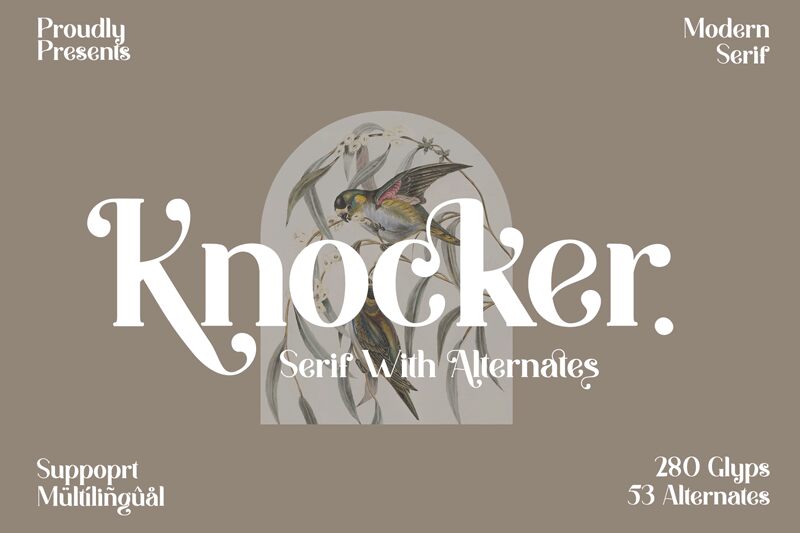
Knocker, a mesmerizing creation by Bearytype, is a display font that exudes the charm of yesteryears with its retro serif style. Perfect for projects seeking an authentic vintage appeal, Knocker adds a touch of nostalgia to logos, posters, and packaging designs. Its alluring curves and distinct serifs make it ideal for eclectic branding campaigns that aim to stand out from the crowd. With its versatile semi-bold width, this font is equally suited for album covers, invitations, or even website headers. Unleash your creativity and transport your audience to a bygone era with Knocker's timeless elegance.